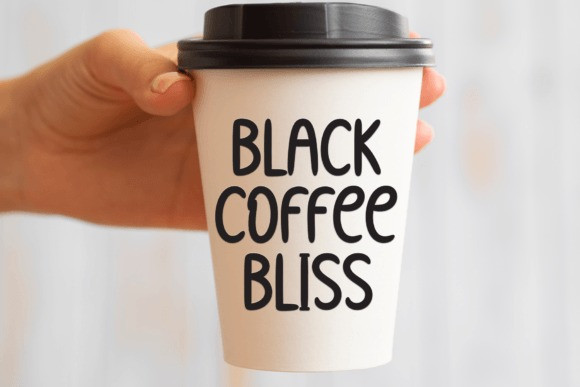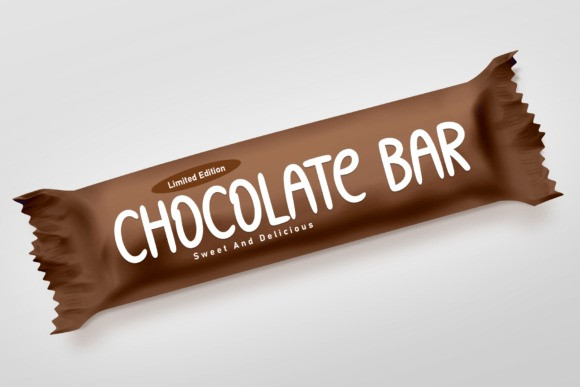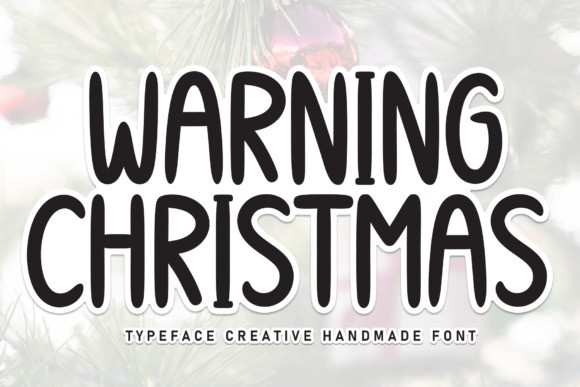
Warning Christmas Font
Warning Christmas Font is a sweet and friendly handwritten font. Its natural and unique style makes it incredibly fitting to a large pool of designs. The only limit is your imagination!